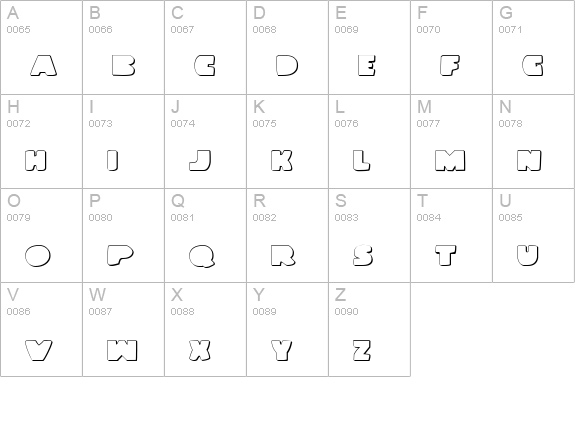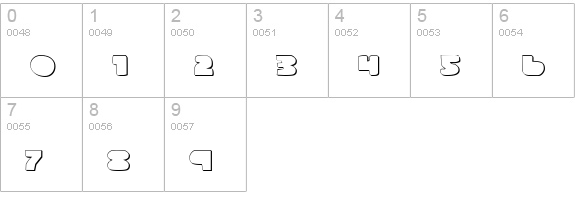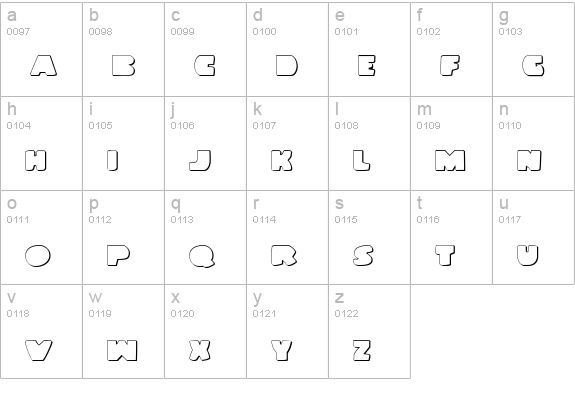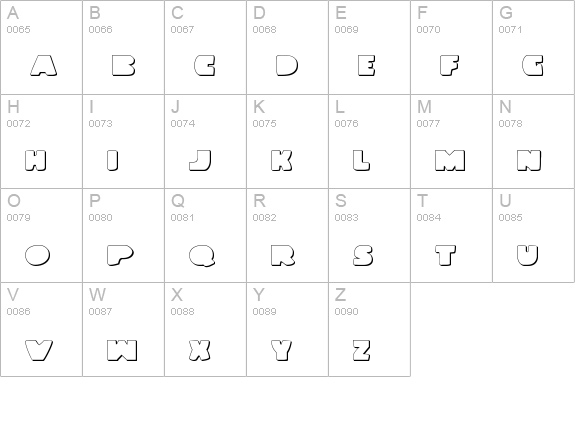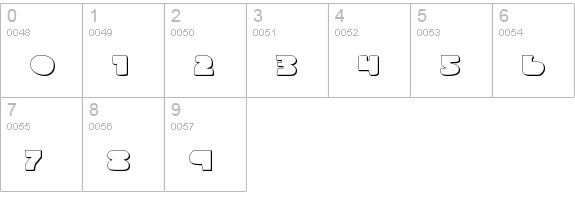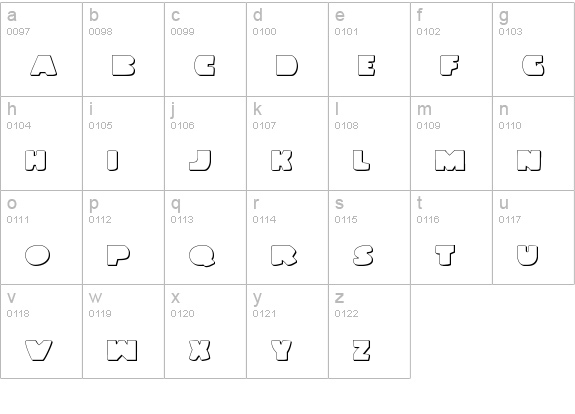
Introducing Land Whale Outline font, a captivating and versatile typeface that is sure to make a bold statement in any design project. With its unique and eye-catching outlines, Land Whale Outline font exudes a sense of modernity and sophistication. This font is perfect for a wide range of applications, from branding and advertising to social media graphics and website design. Its clean and crisp lines ensure maximum legibility, while its distinctive outlines add a touch of creativity and originality to any text. Land Whale Outline font is not only visually stunning, but it is also incredibly easy to use. Whether you are a seasoned designer or just starting out, you will find that this font is a breeze to work with. Its versatility allows it to be used in various sizes, from large headlines to small body text, without compromising its readability. The best part is, Land Whale Outline font is absolutely free! Yes, you read that right. This amazing font is freely available to download at FontsMarket.com. So, you can add a touch of elegance and style to your designs without breaking the bank. Don't miss out on the opportunity to enhance your projects with Land Whale Outline font. Download it today from FontsMarket.com and let your creativity soar to new heights. Get ready to impress your audience with this stunning and versatile typeface that will leave a lasting impression.